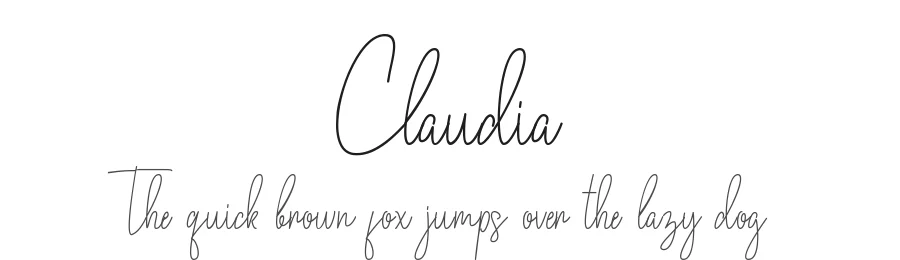
About South Boston Font
South Boston Specifications
| Font Family | South Boston |
| Full Name | South Boston |
| Glyph Count | 238 glyphs |
| PostScript Name | SouthBoston |
| Designer | aminmario |
South Boston supports 209 languages.
South Boston Font is a script font that shines as a display or heading face. Pair it with a clean sans-serif or serif font for body text β the contrast creates a clear hierarchy while the two styles stay balanced and easy to read.
South Boston Font
by AminMario